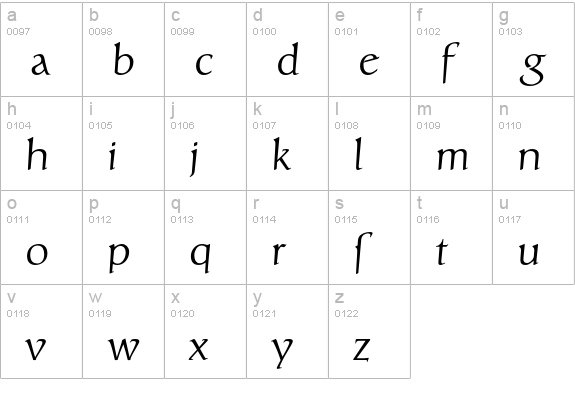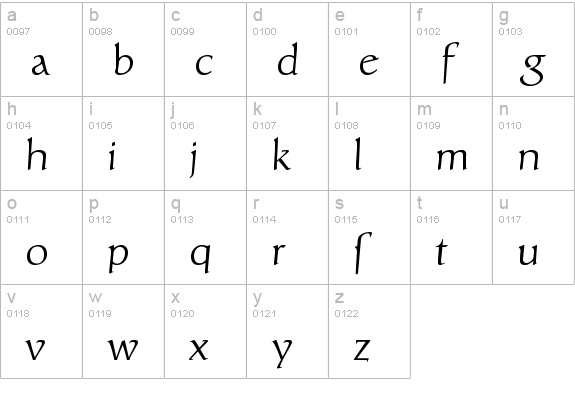
Carolina Dfr Font Details
Carolina Dfr is a stunning and versatile font that embodies elegance and sophistication. Its sleek lines and graceful curves make it perfect for a wide range of design projects, from branding to packaging to invitations. This font exudes a sense of modernity and style that will elevate any design it is used in. The best part about Carolina Dfr is that it is completely free to download at FontsMarket.com. This means that you can add this beautiful font to your collection without any cost, making it an excellent choice for designers on a budget or anyone looking to enhance their projects with a touch of class. With its timeless appeal and easy readability, Carolina Dfr is sure to become a go-to font for all your design needs. Download it today and see for yourself the impact this font can have on your creative projects.